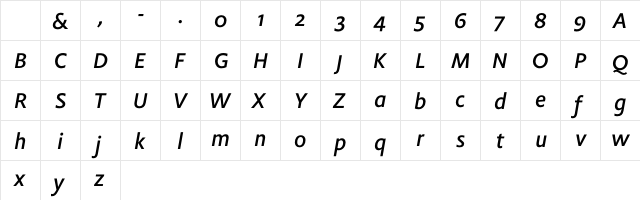
Flex is a composed and adaptable typeface that performs quietly and consistently across a wide range of design contexts. The slanted form adds forward momentum and visual energy.
Pro Tip: Use Flex for emphasis, pull quotes, and subheadings where its slanted energy can add rhythm to the layout.